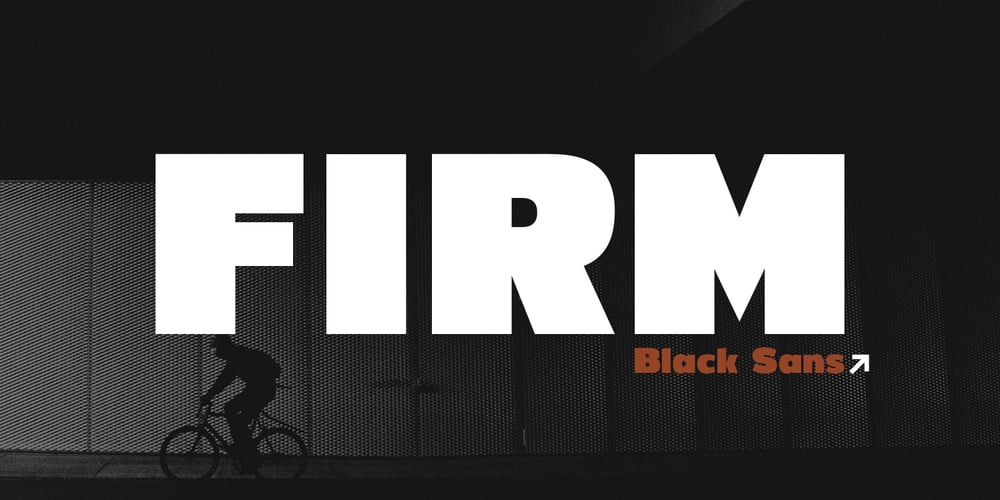
Firm
Firm font
Firm Font Family was designed by Pavel Larin and published by Larin Type Co. Firm contains 1 styles and family package options. Firm is a black sans serif display font. Perfectly attracts attention due to its shapes. With it, you can highlight important information in your text, and it is also perfect for creating a logo.This font contains alternates lowercase, ampersand and ligatures, math symbols, arrows, fractions, and multilingual support.